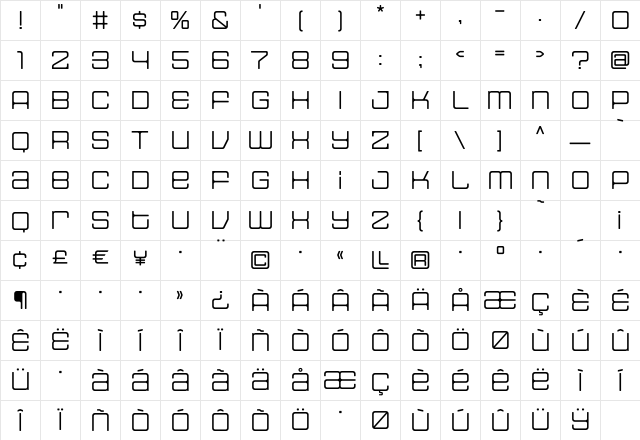
HOUSE3009 Spaceage-Light-Alpha Free Font
HOUSE3009 Spaceage-Light-Alpha
Style: Spaceage-Light-Alpha
HOUSE3009 Family
Complete HOUSE3009 Spaceage-Light-Alpha glyph index. Displaying only characters natively supported by HOUSE3009 Spaceage-Light-Alpha font.
Design Context for HOUSE3009
HOUSE3009 is a composed and adaptable typeface that performs quietly and consistently across a wide range of design contexts. Its slender proportions lend an understated elegance to any composition.